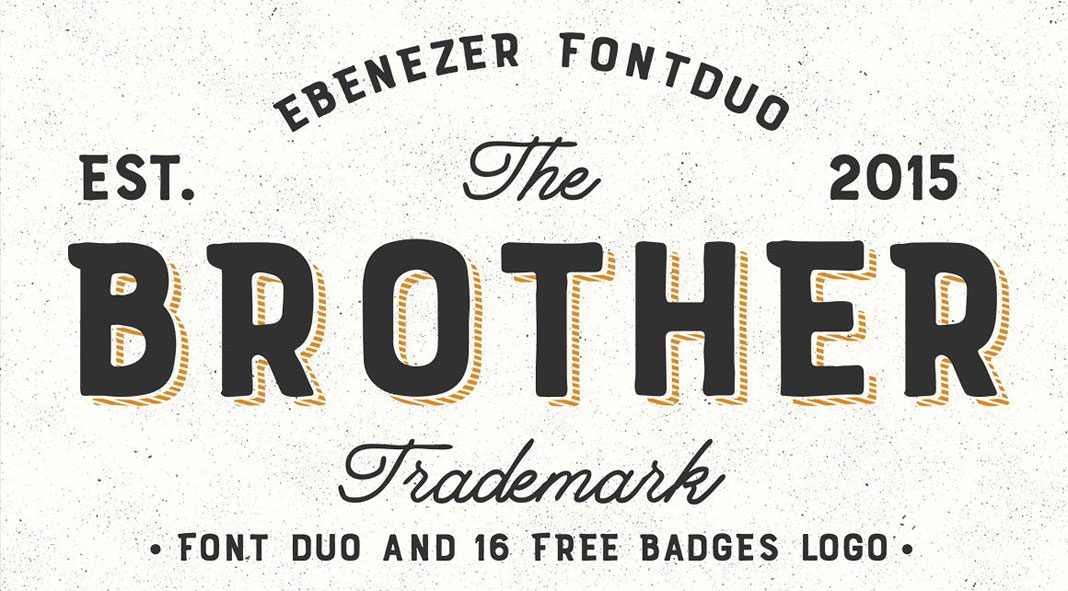
Brother, a vintage-inspired font duo that comes with free badges and logos.
Created and published by Design.co, this well-accomplished set consists of two fonts, Ebenezer (a hand-drawn sans serif) and Dreaming (an elegant script). Whether alone or in combination, the fonts are intended for display use. They work great for branding, signage, titles, website headers, posters, greeting cards, logos, letterheads, etc. In addition, the set comes with a free collection of 16 badges and logs. For further details, just follow the link below.